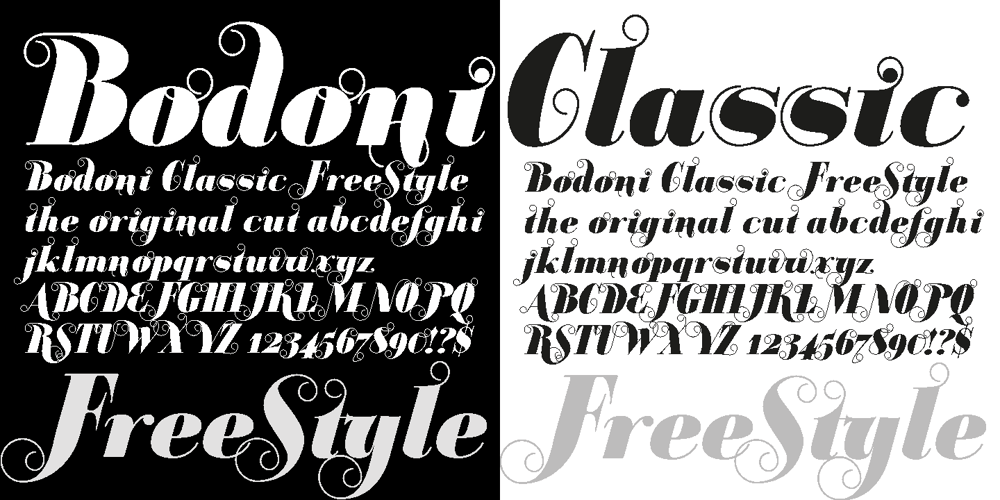
Bodoni Classic Free Style Font Family was designed by Gert Wiescher and published by Wiescher Design. Bodoni Classic Free Style contains 1 styles and family package options. Bodoni Classic Free Style is my really fat, high contrast free flowing, liberated designed, script-like non-script extension to my ever expanding Bodoni Classic family.